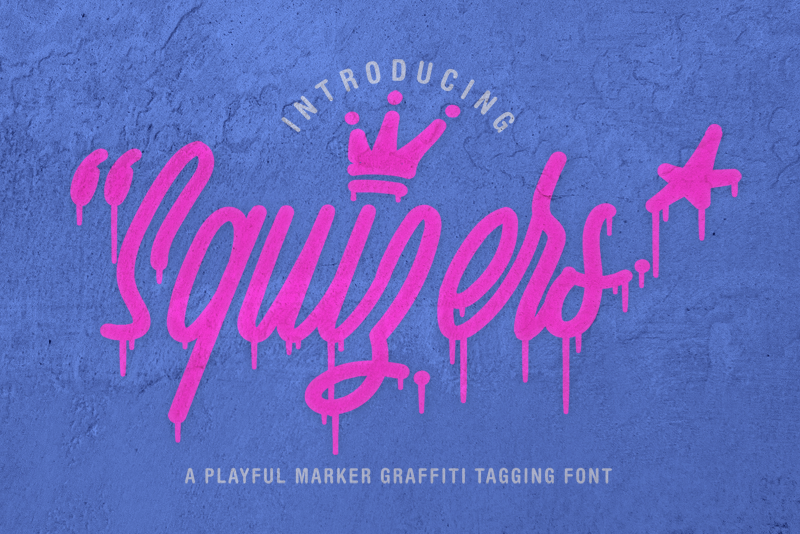
Squizers is playful graffiti marker font display. Comes with 2 styles font: regular and marker type with many opentype feature, upper and lower case standard character, punctuation and numerals, multilingual characters, ligatures, stylistic alternates, beginning and ending, and many more glyph to make your design look real graffiti tagging. Perfect for personal and commercial use your company logo, branding, poster, flyers, greetings, invitation, book cover, quotes, and many more. FREE for personal use Donate to the author via paypal account[royalbluestore@gmail.com]. Buy the commercial license and the full version on: https://creativemarket.com/semuthitam https://fontbundles.net/semut-hitam https://thehungryjpeg.com/store/semut-hitam-creatives https://www.creativefabrica.com/designer/semuthitam/ If you have any request or question, contact me via email [semuthitam.ww@gmail.com]. |